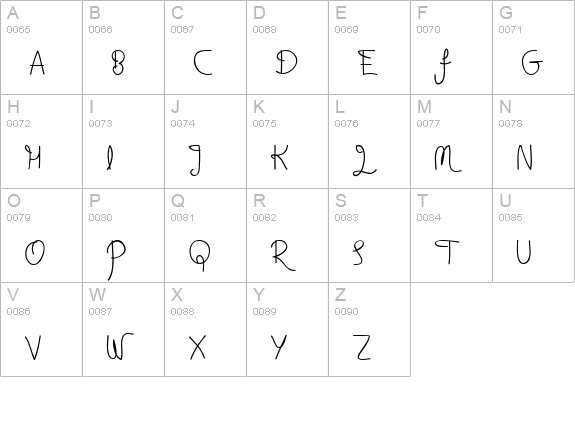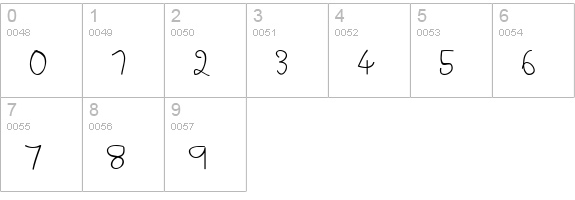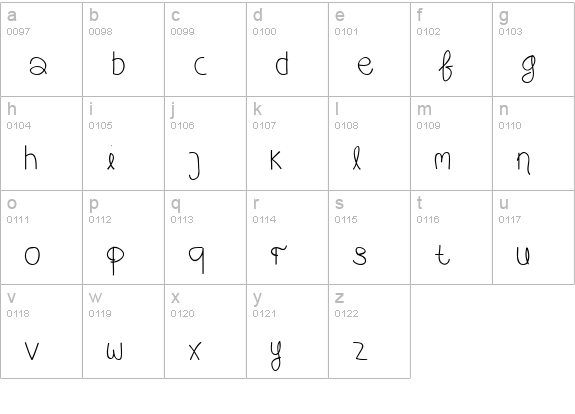
Love Me For A Reason font is a beautifully crafted typeface that exudes elegance, charm, and a touch of whimsy. Its graceful curves and perfectly balanced letterforms make it a versatile option for a wide range of design projects. With its unique and distinctive style, Love Me For A Reason font captures the essence of romance and passion, making it the perfect choice for wedding invitations, love letters, and heartfelt messages. Its delicate strokes and intricate details add a touch of sophistication to any design, while still maintaining a sense of playfulness. But what sets Love Me For A Reason font apart is that it is not only visually stunning, but also free. That's right, this remarkable font is freely available to download at FontsMarket.com, allowing designers, creatives, and enthusiasts alike to bring their visions to life without any financial constraints. Whether you are designing a romantic greeting card, creating a captivating logo, or simply looking to add a touch of love to your next project, Love Me For A Reason font is the perfect choice. Its versatility, elegance, and availability make it a font that truly stands out from the rest. So go ahead and download Love Me For A Reason font from FontsMarket.com today, and let your creativity soar as you fall in love with this extraordinary typeface.